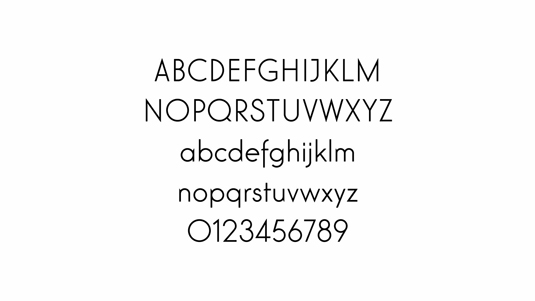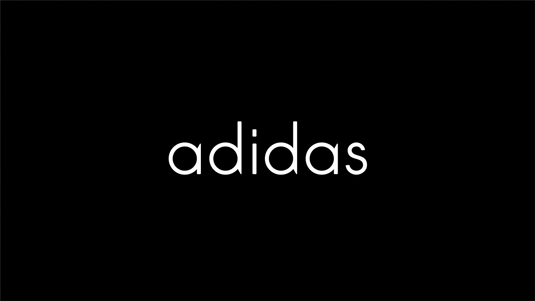
Elegant Lux pro by Wir Sind Schoener and Florian Paizs
Today's typeface of choice is Elegant Lux Pro, a slim sans serif designed by Augsburger designer Florian Paizs and art director Wir Sind Schoener.
Exclusive to The Designers Foundry, it is described as 'a completely revised and redrawn version of Elegant Lux Mager Demo. Influenced by the geometric grotesk faces that came up during the 1920s and 30s, the font is of technological construction, but has a warm appearance due to its rounded corners which pay homage to the metal type printed look'.